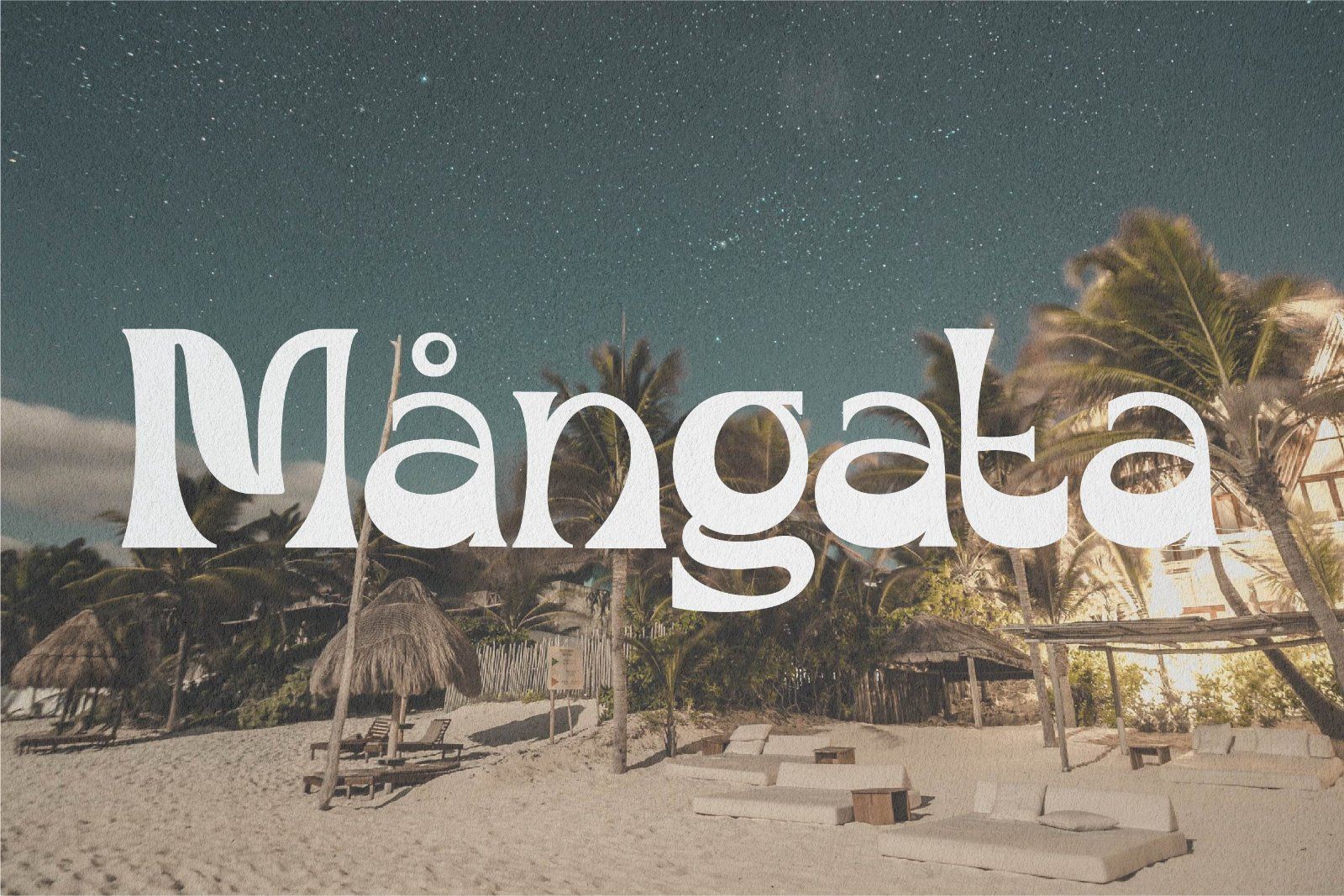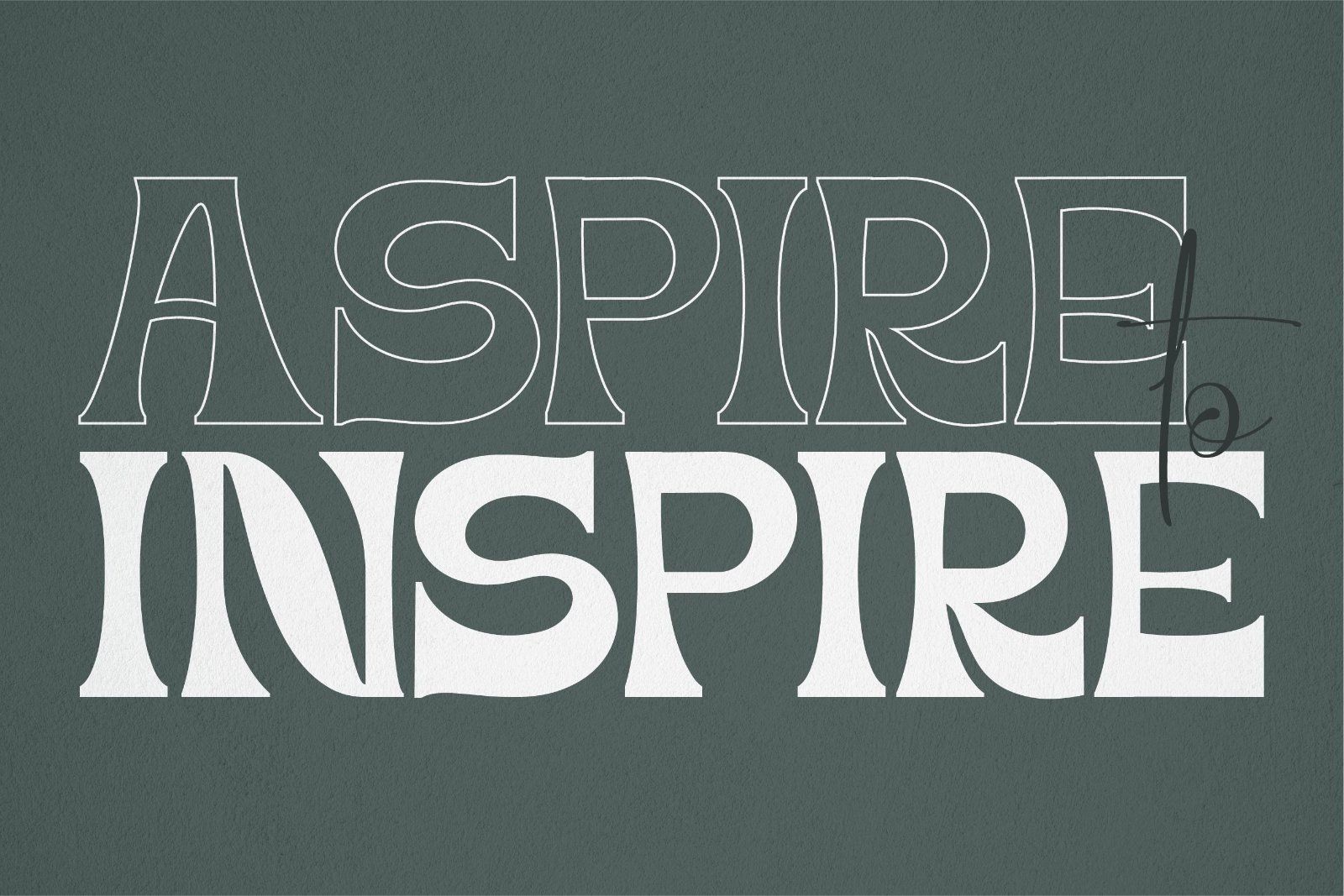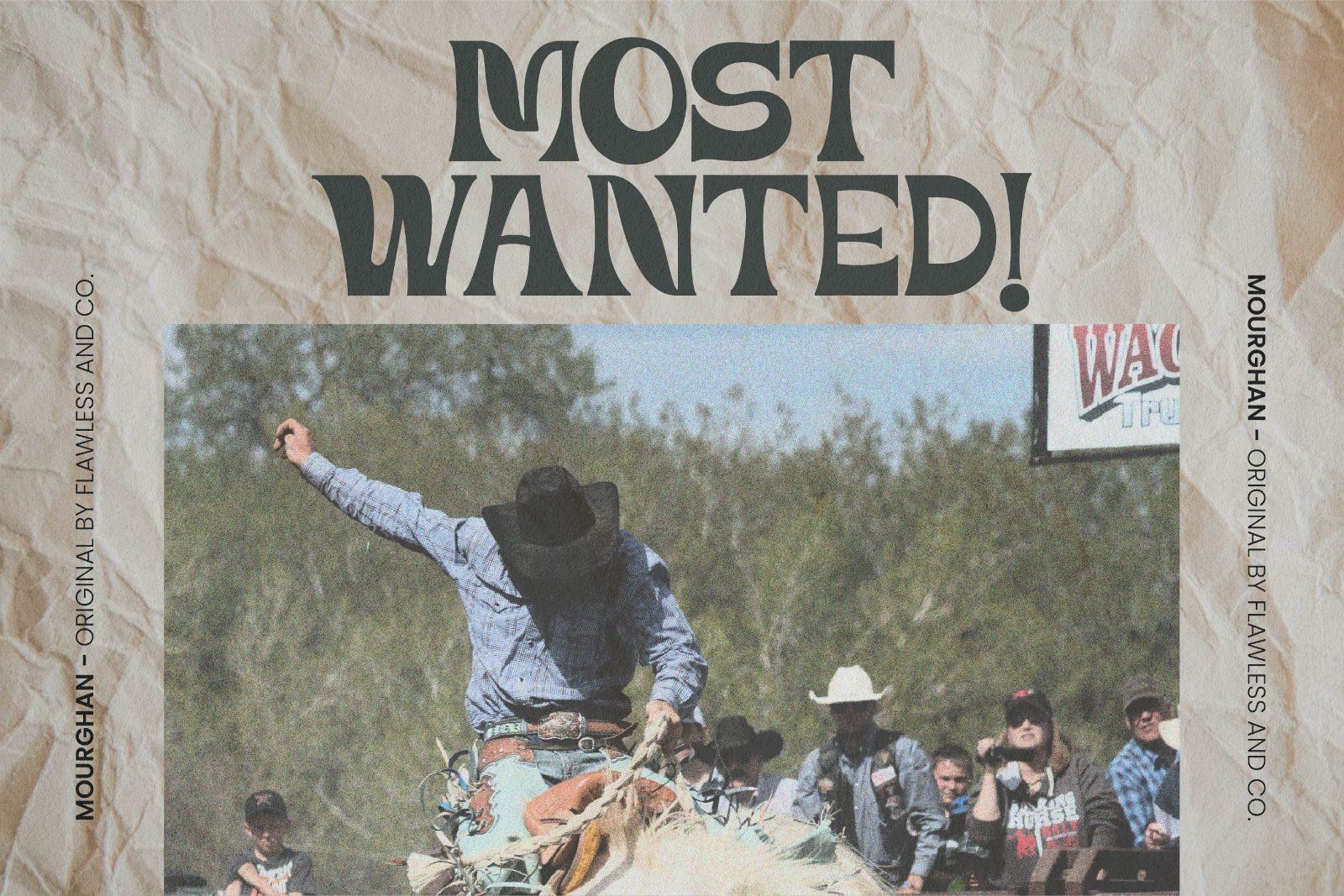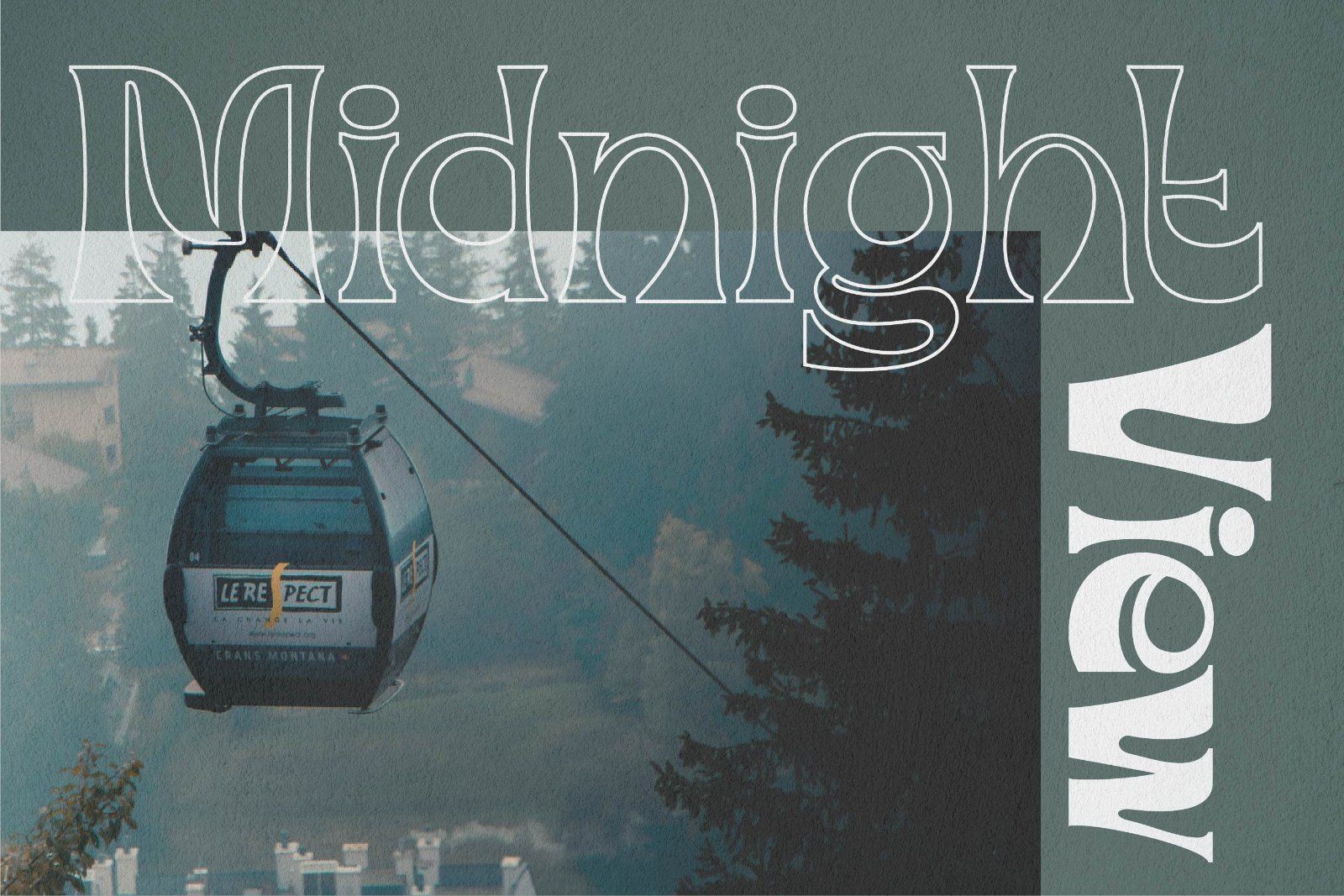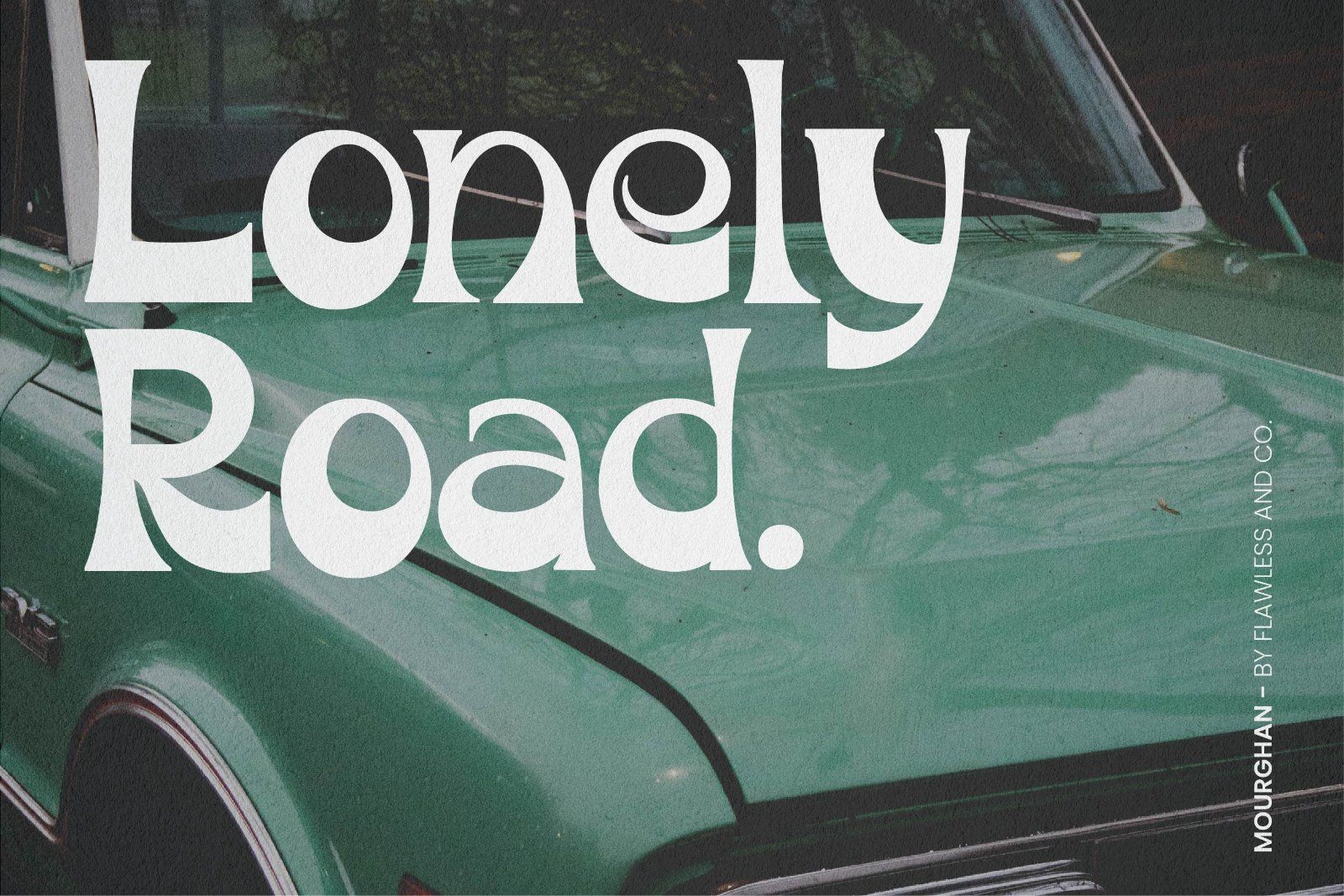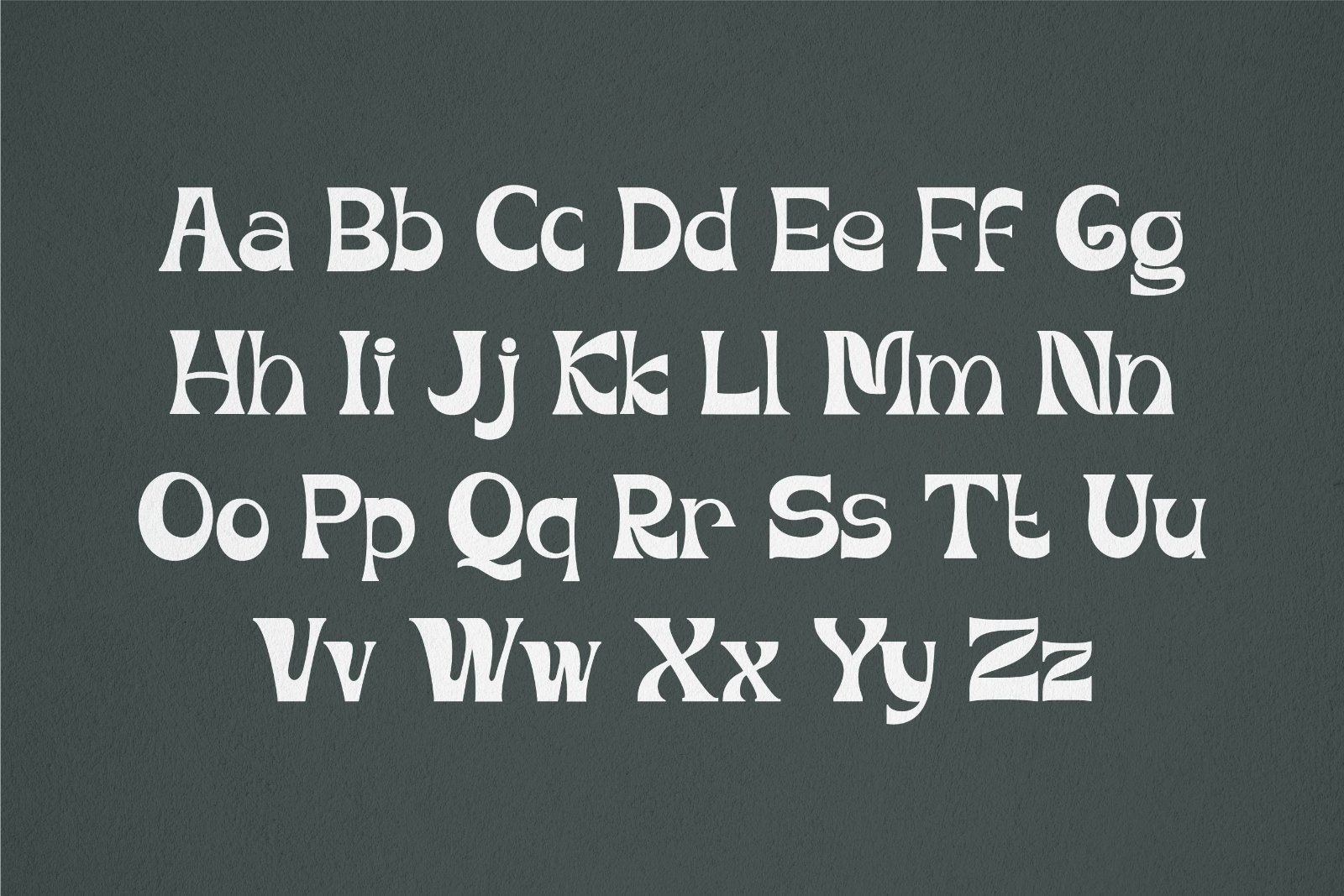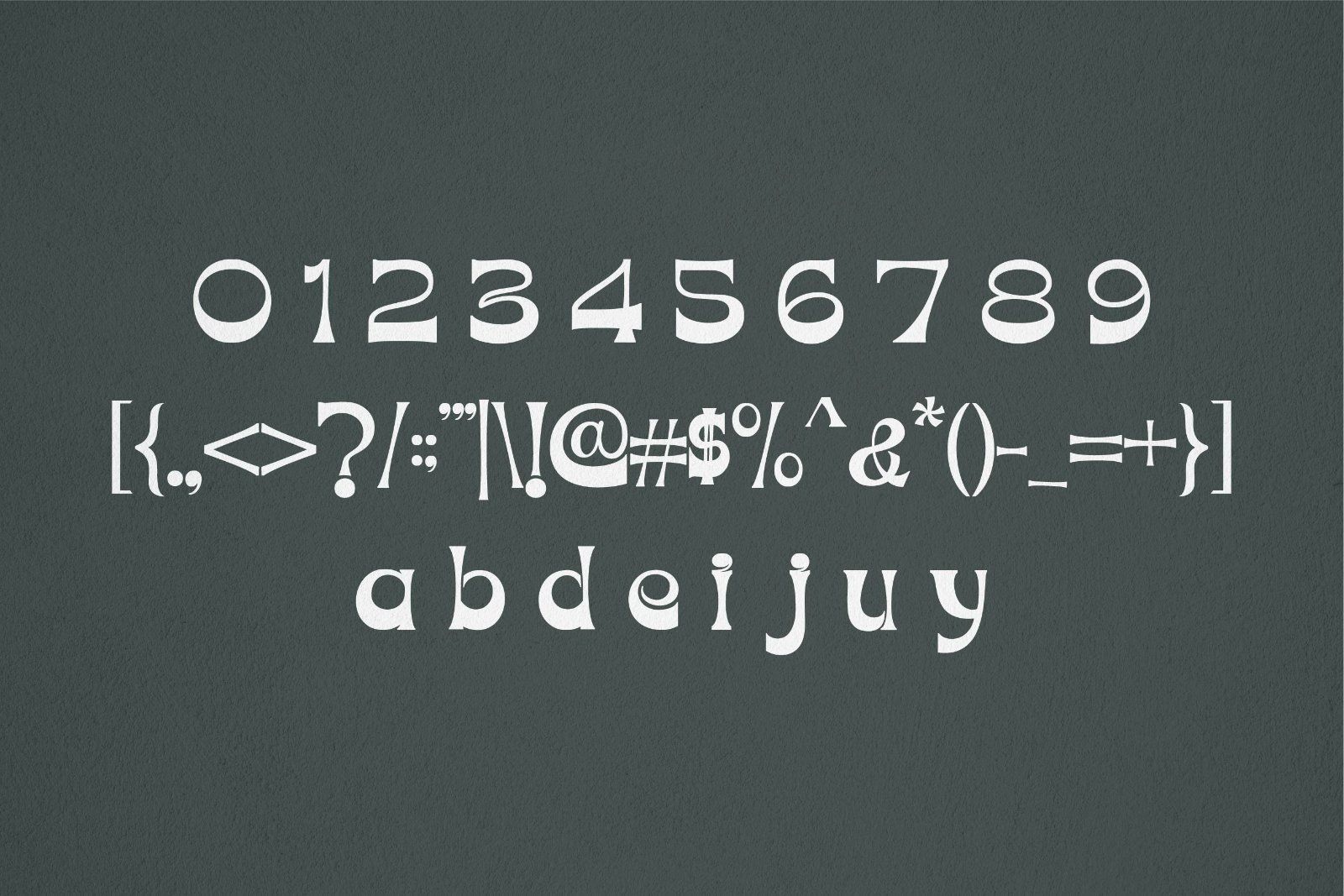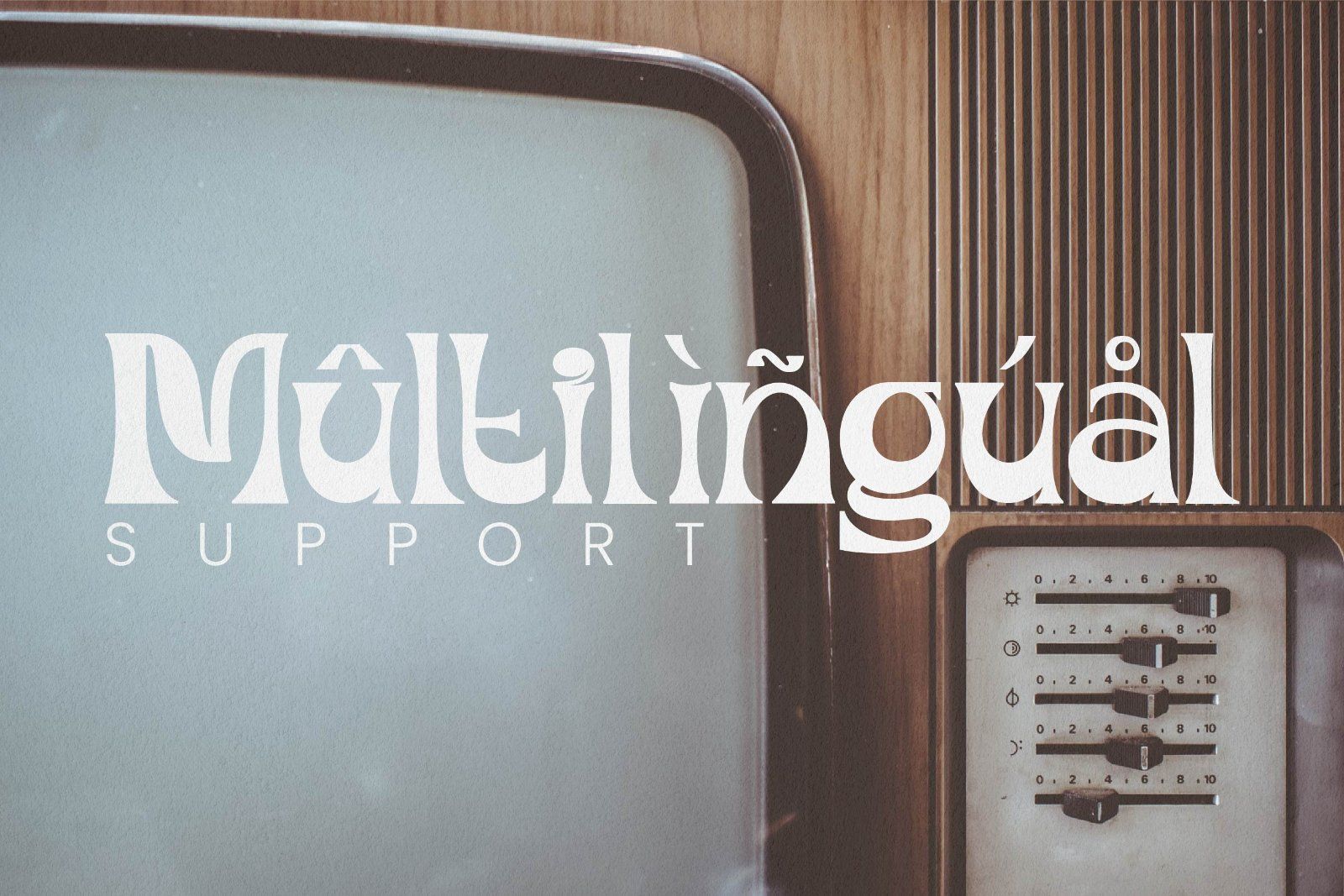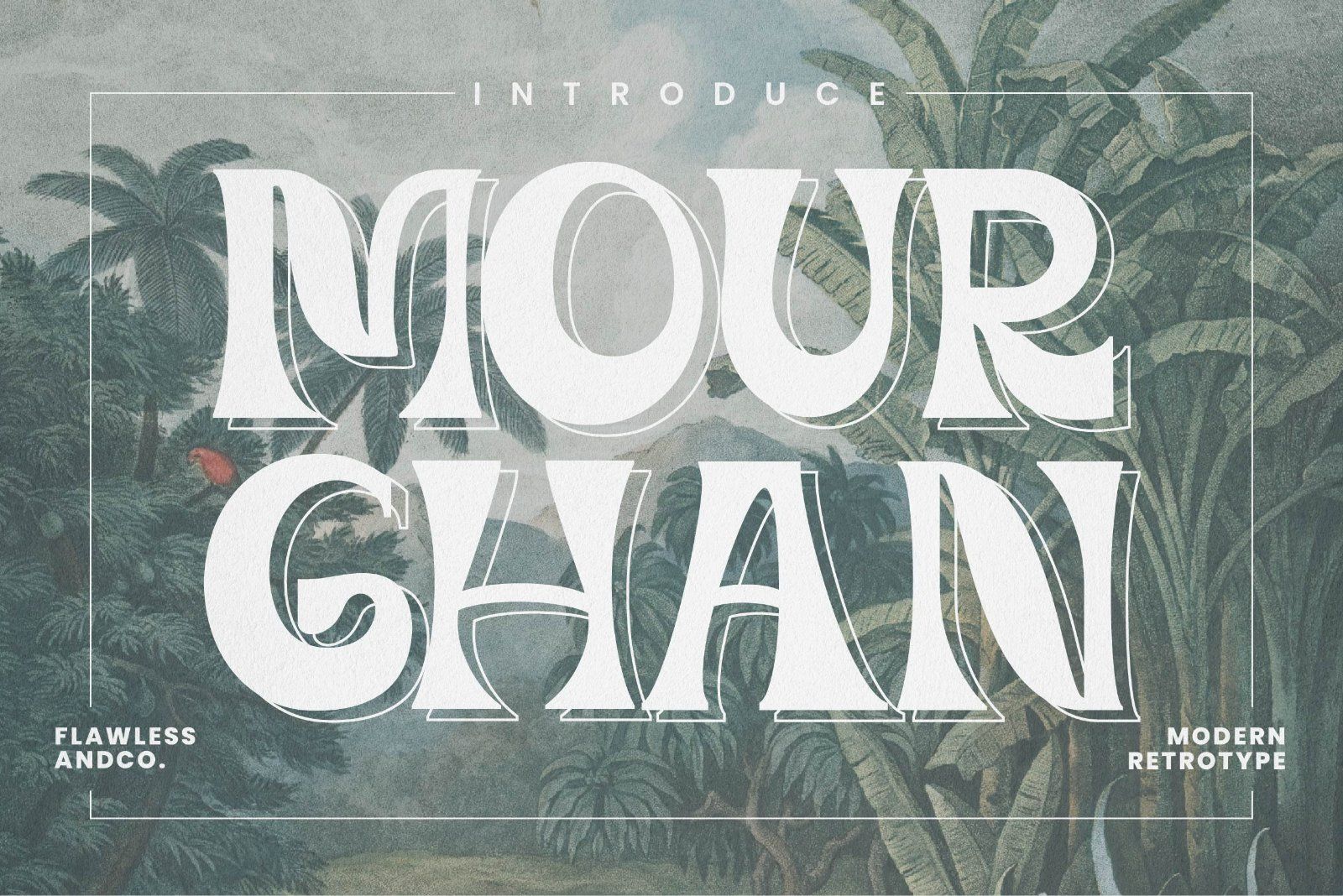
Mourghan is a bold retro display typeface that combines classic serif elegance with a striking vintage-inspired character. Its distinctive letterforms feature strong proportions, dramatic curves, and refined serif details, creating a sophisticated yet eye-catching appearance.
• Uppercase alphabet A-Z
• Lowercase alphabet a-z
• Alternate Character
• Numbers 0-9
• Some punctuation